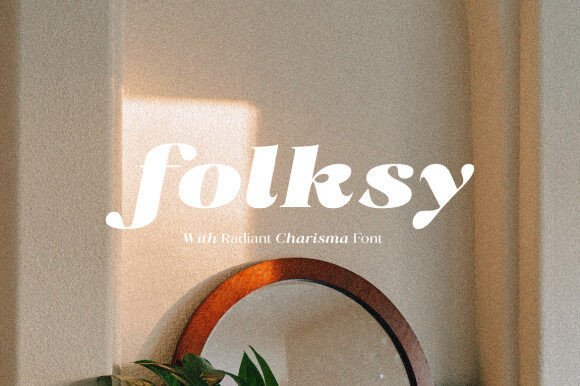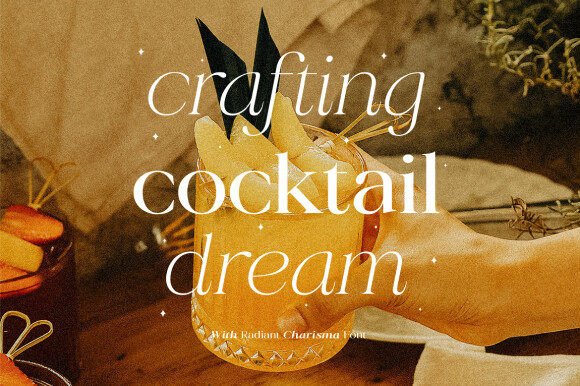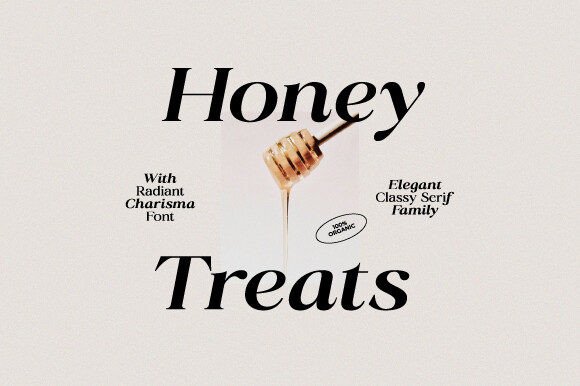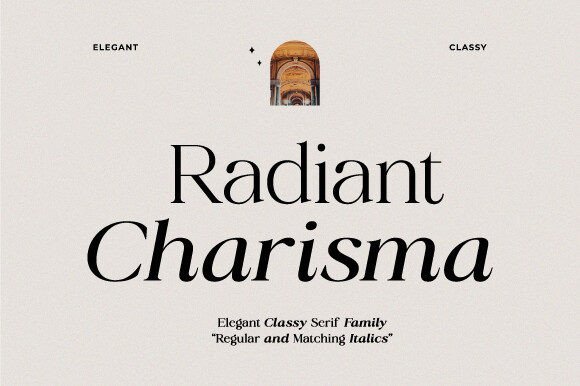
Introduction to Radiant Charisma Font
Radiant Charisma is an elegant and classy serif font.
With 18 regular weights & matching italics There are also static + variable files available.